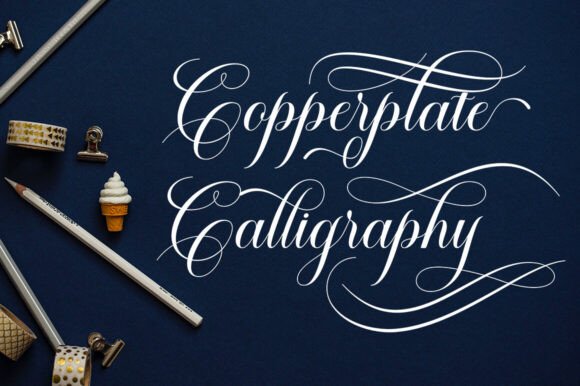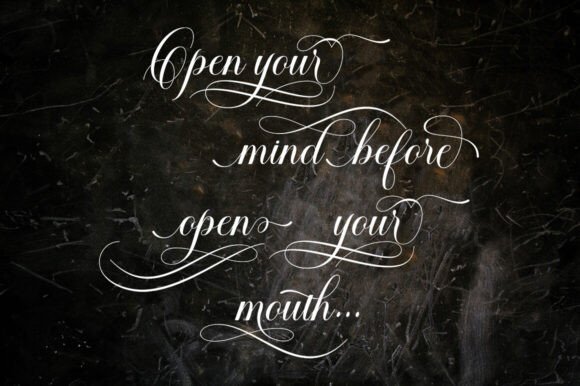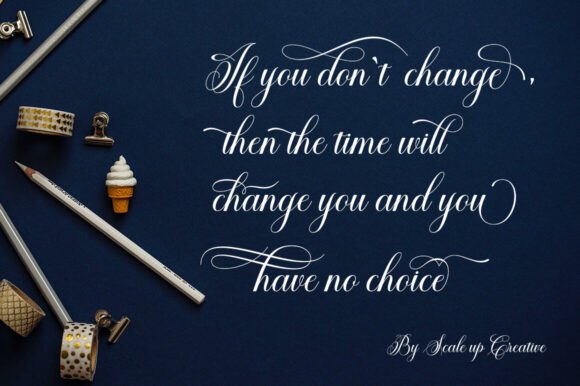
Brayline Font
Brayline is a calligraphy script font that comes with exquisite change characters, a kind of classic decorative copper script with a modern twist, designed with great detail to bring out stylish elegance.Brayline appeals as a typeface that is smooth, clean, feminine, sensual, glamorous, simple and very easy to read, luxurious typeface. The classic style is very suitable to be applied in various formal forms such as invitations, labels, restaurant menus, logos, fashion, make up, stationery, novels, magazines, books, greeting / wedding cards, packaging, labels or any kind of advertising purposes.I highly recommend using a program that supports OpenType features and the Glyphs panel such as Adobe Illustrator, Adobe Photoshop CC, Adobe InDesign, or CorelDraw, so that you can view and access all variations of Glyphs.Brayline is coded with Unicode PUA, which allows full access to all additional characters without having special design software. Mac users can use Font Book, and Windows users can use Character Map to view and copy any of the additional characters to paste into your favorite text editor/app.If you need help or have any questions, let me know. I’m happy to help.Thanks & Happy Designing!